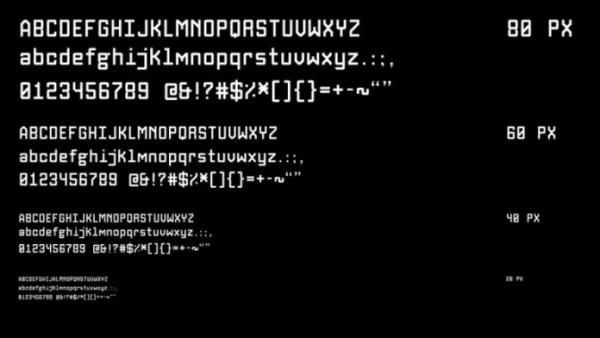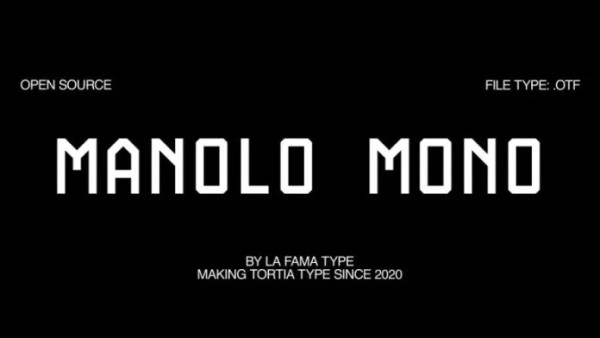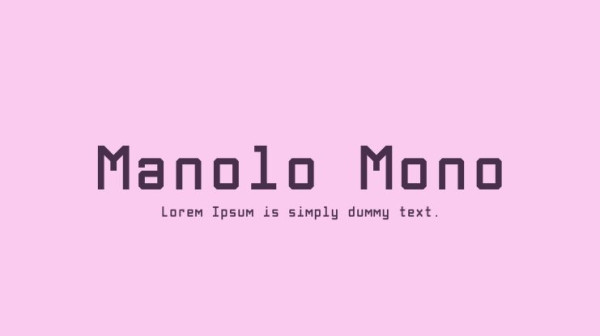
Manolo Mono Font is a new generation of an futuristic sans serif font. Thin geometric lines with sharp edges to ensure a striking exposure. It’s designed and shared by Asilos Magdalena. Manolo Mono is a minimal monospaced typeface, combining pure, strong geometrical form with a subtle, distinct appearance. The font works great at logos, posters, web, and other display settings.
Manolo Mono Font